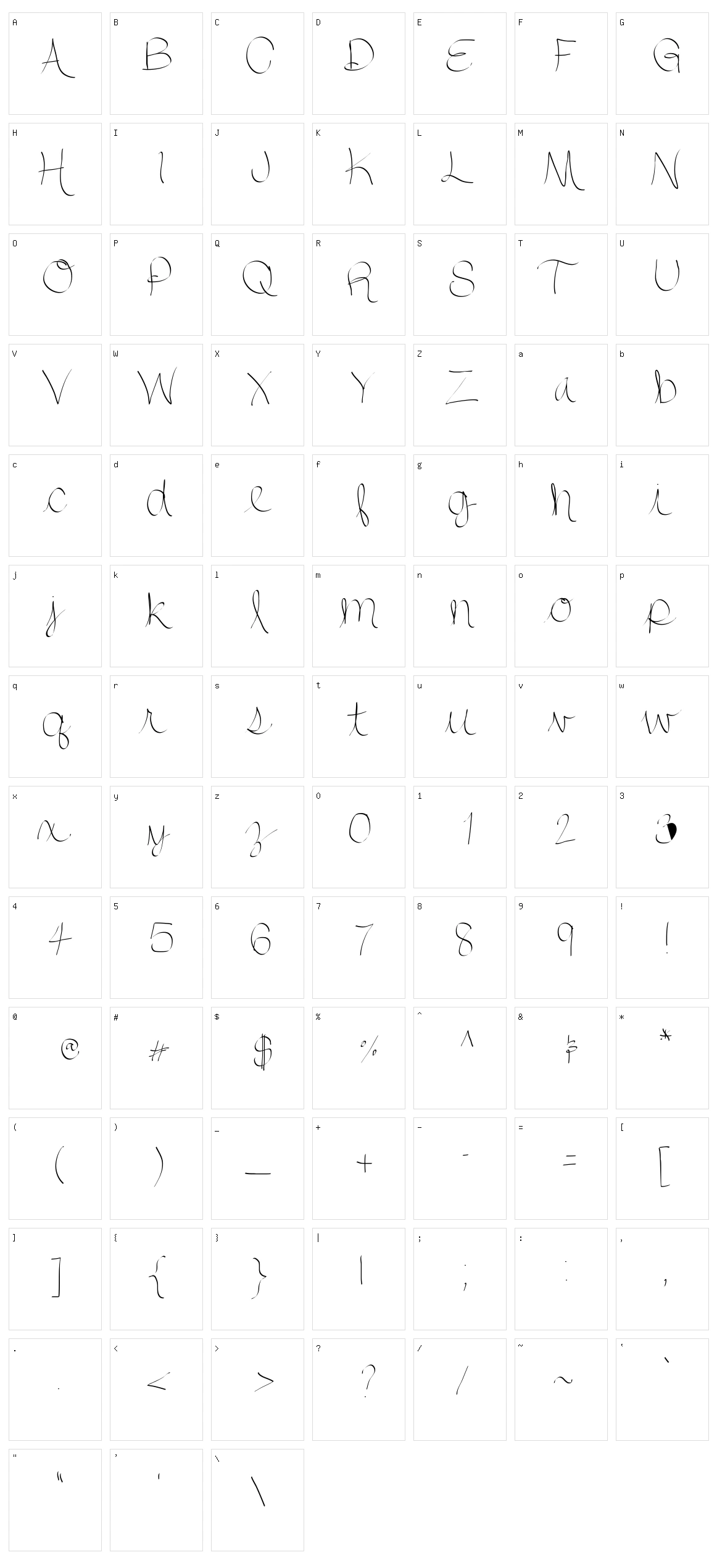
The free font Ht Quickie is carefully designed by Holly Trimmer, showcasing a thoughtful balance of creativity and usability and falls under the Script font style. When you download the ZIP file, it contains only 15.09 KB of font files, making it lightweight and quick to download. Please review the license details below to understand permitted usage and distribution rights. If license information is not available, we recommend using this font for personal projects only or contacting the author directly for commercial usage permissions.